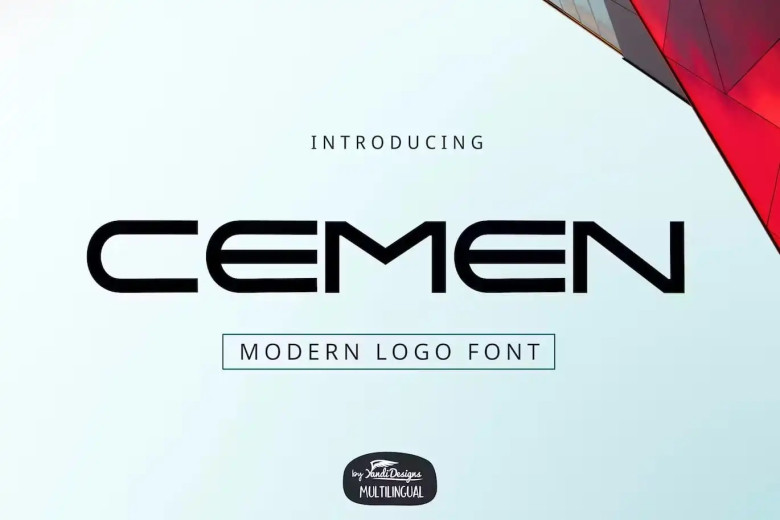
Cemen Font
Cemen font is an exciting, modern multipurpose font perfect for use in projects ranging from children’s books, quotes, headings and titles to logos.
Cemen Modern Logo Font